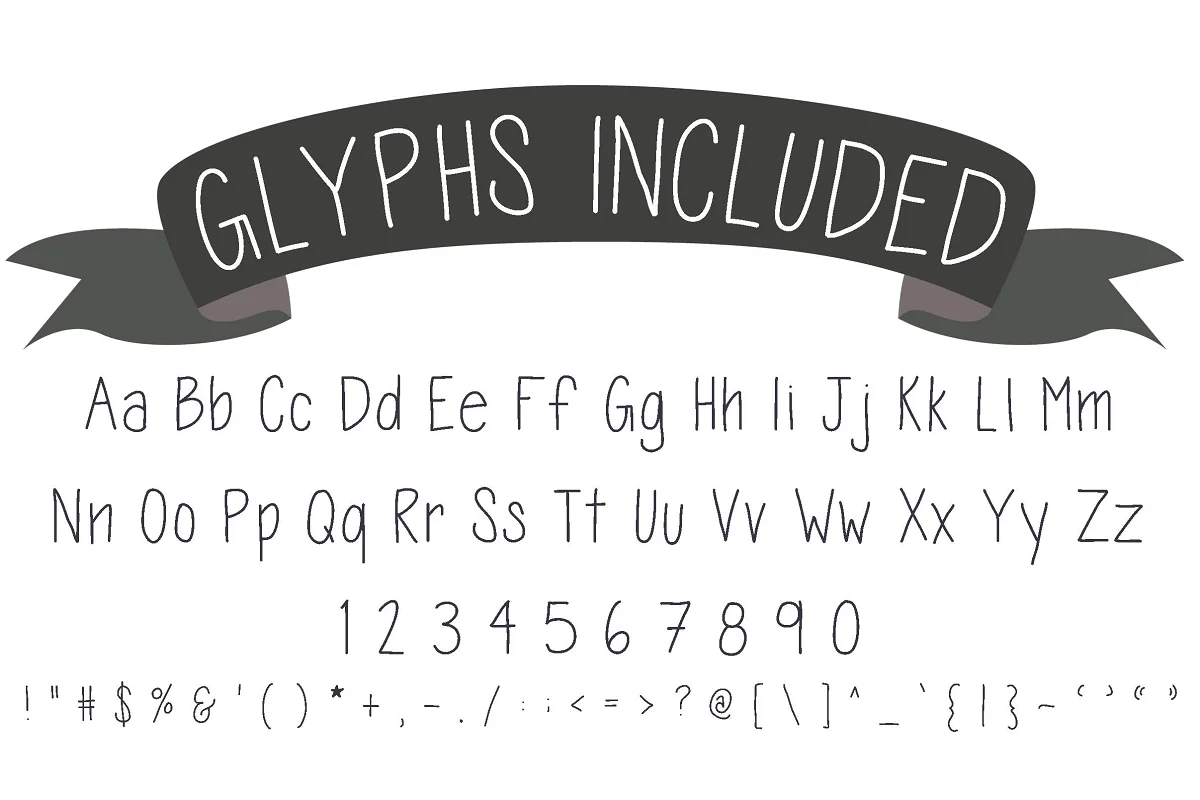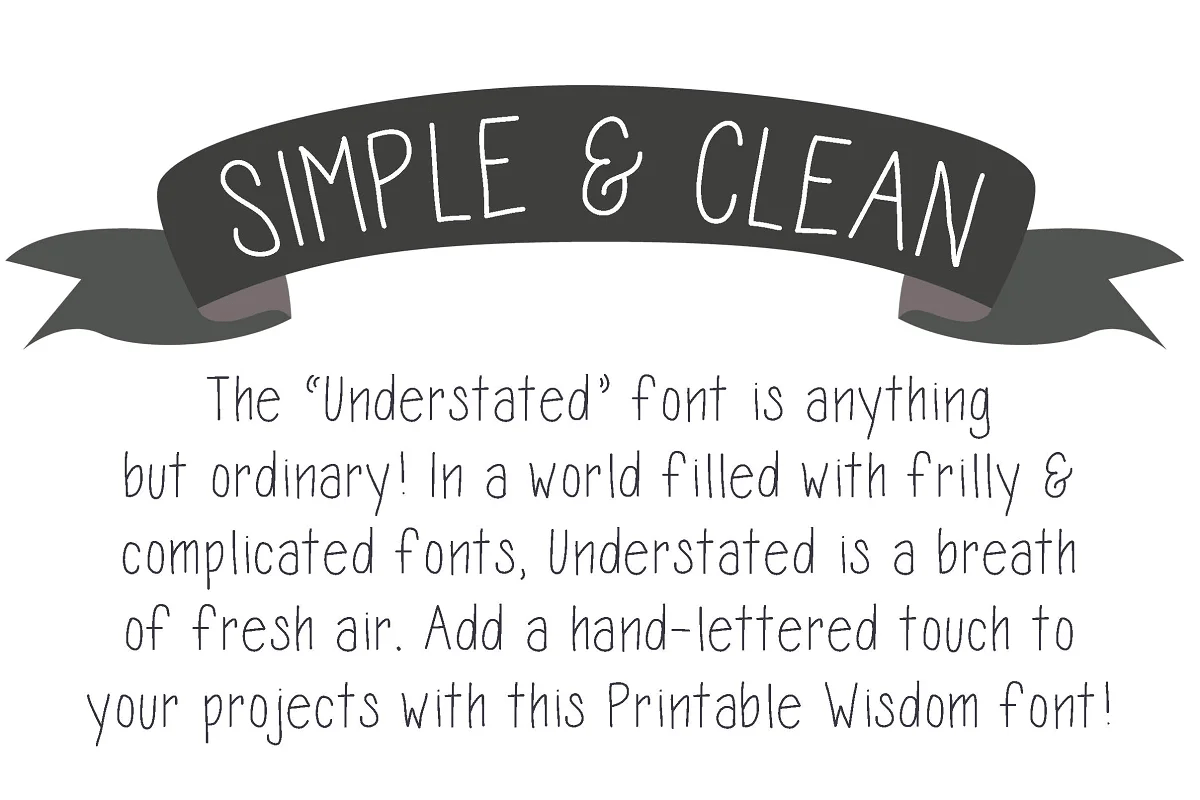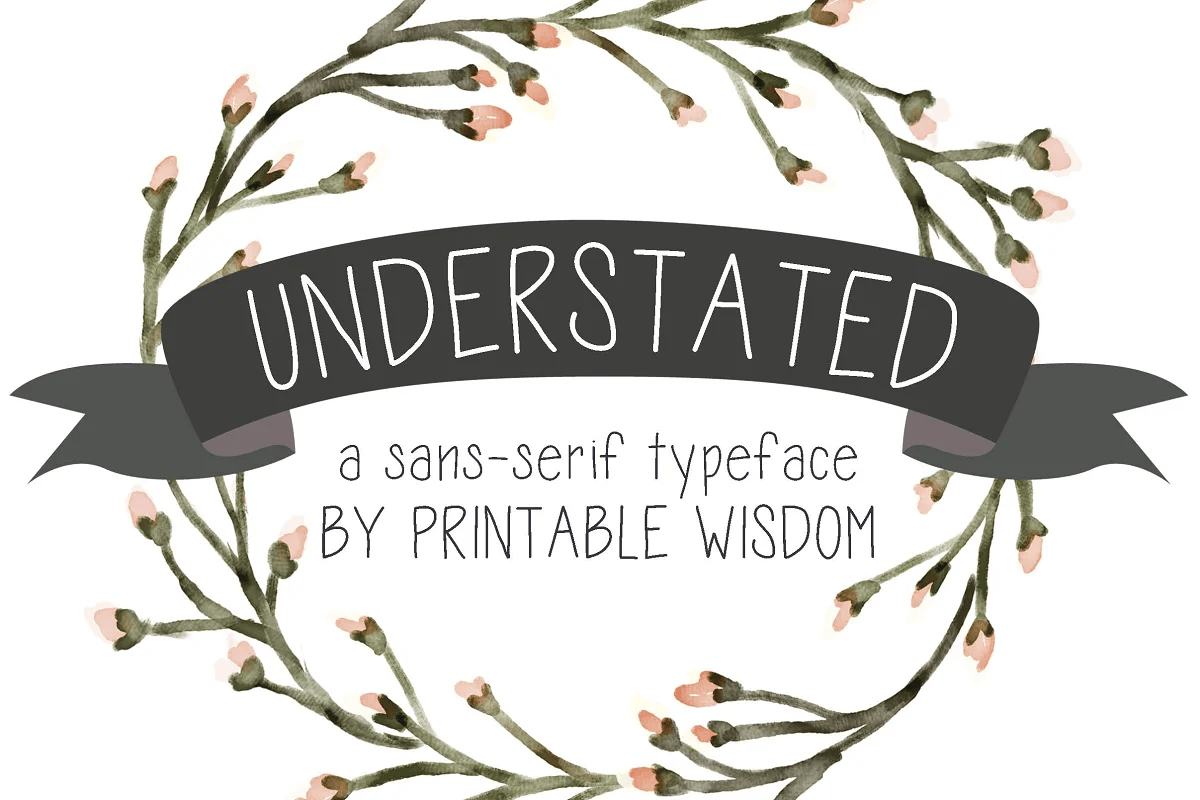
In a world filled with frilly and complicated fonts, Understated is a breath of fresh air! Add a hand-lettered touch to your projects with this Printable Wisdom font. All punctuation and numbers included (along with a gorgeous ampersand!).